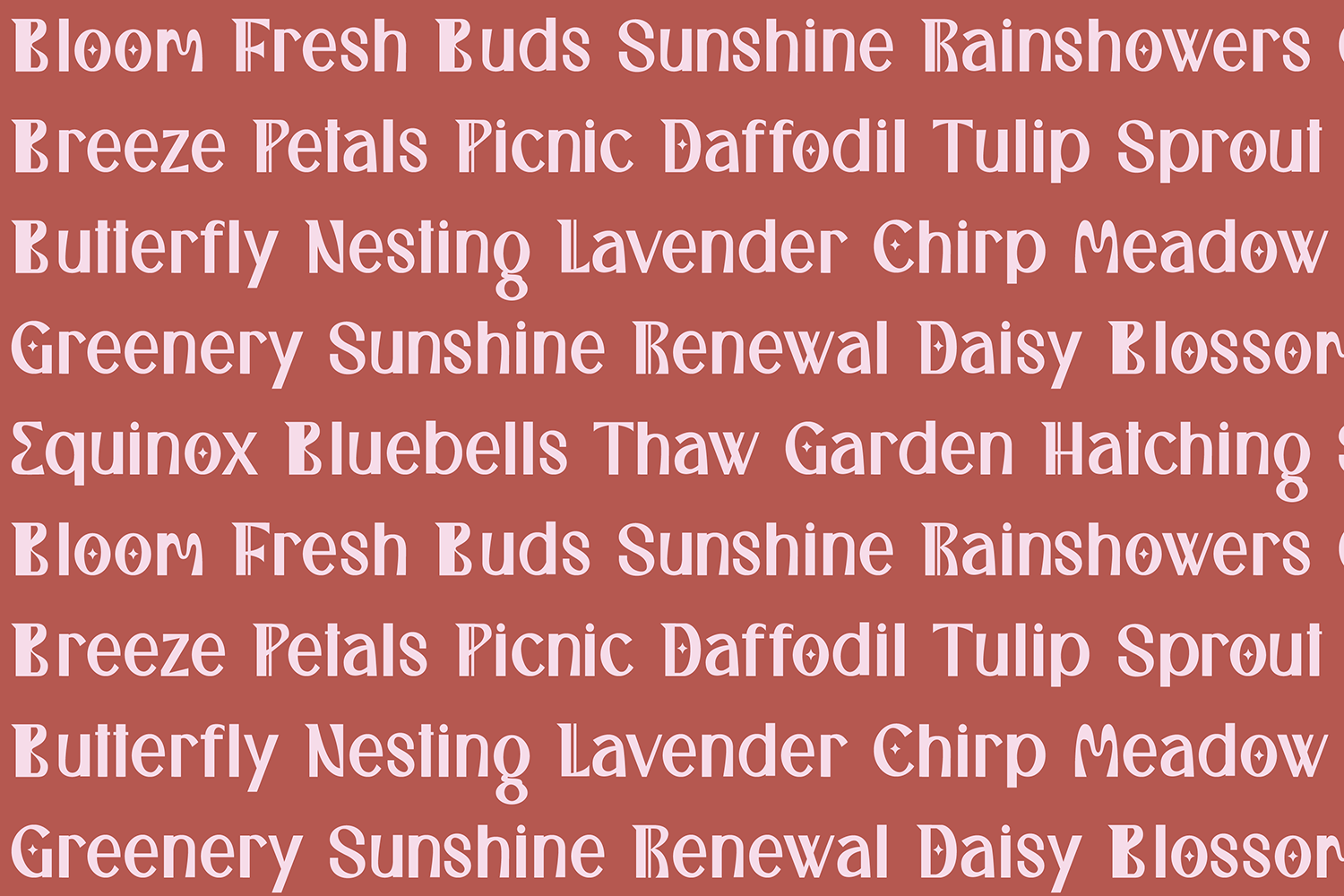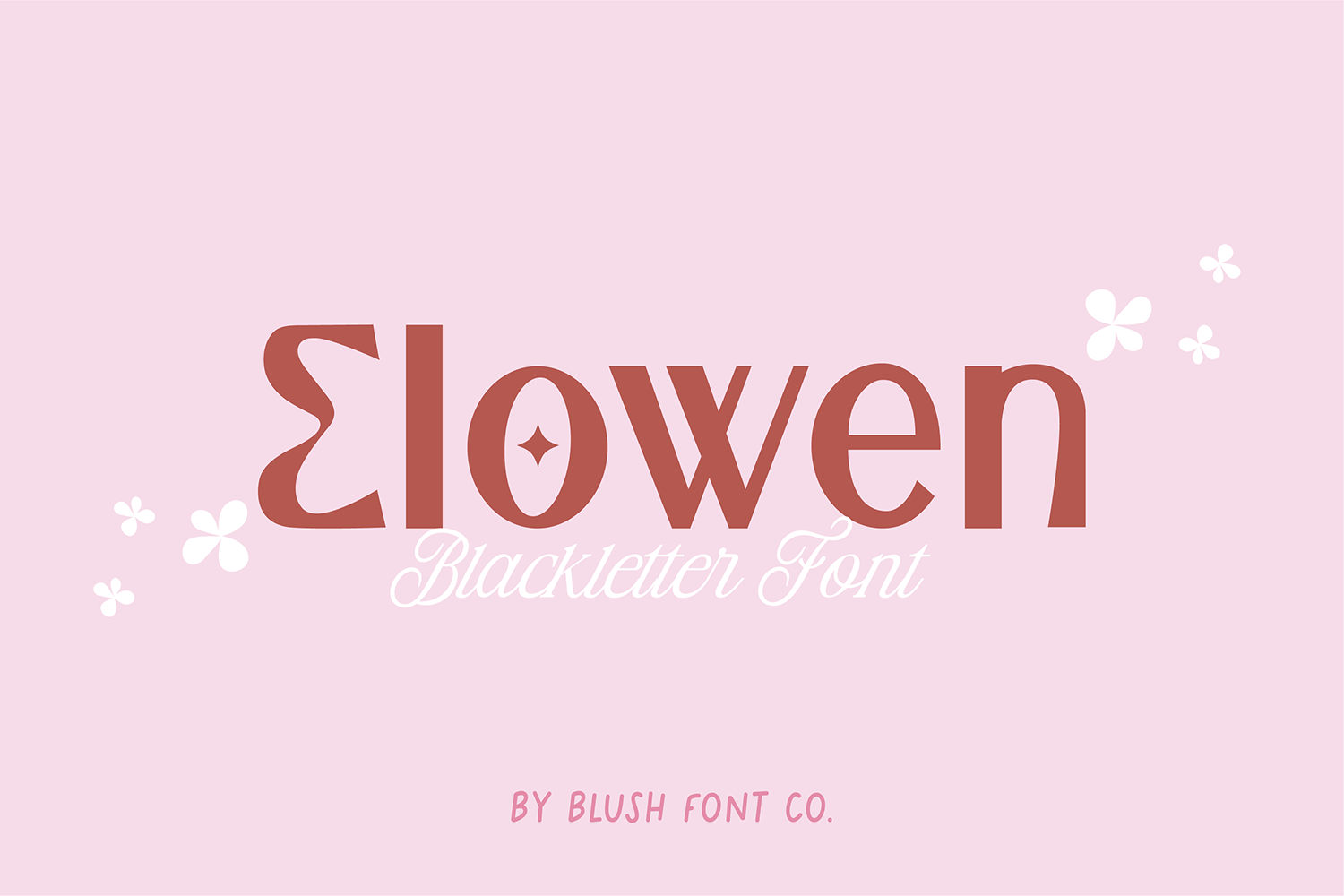
"Elowen" a bold and stylish modern font.
This font is a hand-drawn blackletter font that is perfect for social media or crafty projects. Use if for branding, crafts for decor, invitations, and more! Includes upper and lowercase glyphs, numbers, punctuation, and intl characters.